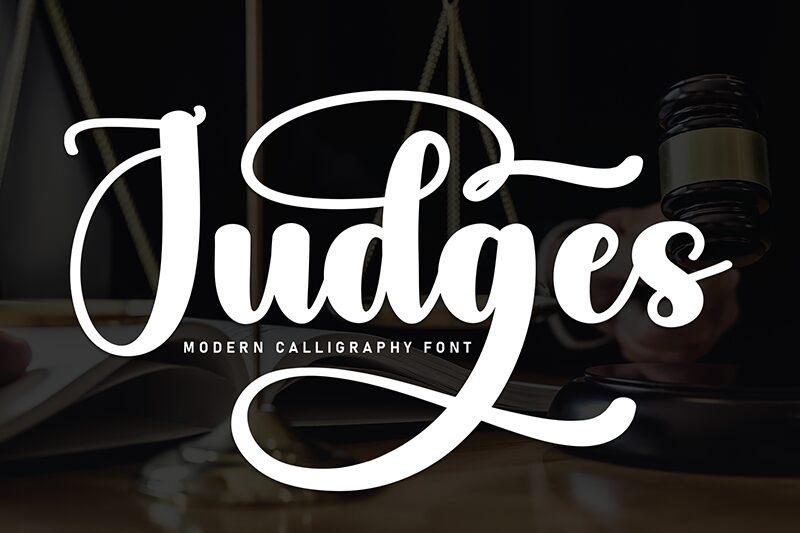
Judges
Judges font designed by Scratchones is a free calligraphy font which combines elegance with flowing, script-style lettering. Expressive and sleek, it fits within a modern aesthetic with its dance-like slantly letters connected in harmony. With rounded edges and well-thought strokes, this masterpiece has all the required elements that ensure each letter easily flows to the next one.
Let your words speak for you when you use this font for logos of fashion and cosmetic brands, apparel item packaging designs like perfume or makeup bottles, wedding planners’ advertising material whether posters or stationery items or texts in invitation cards. Other fitting usages include book covers and social media posts among many more.